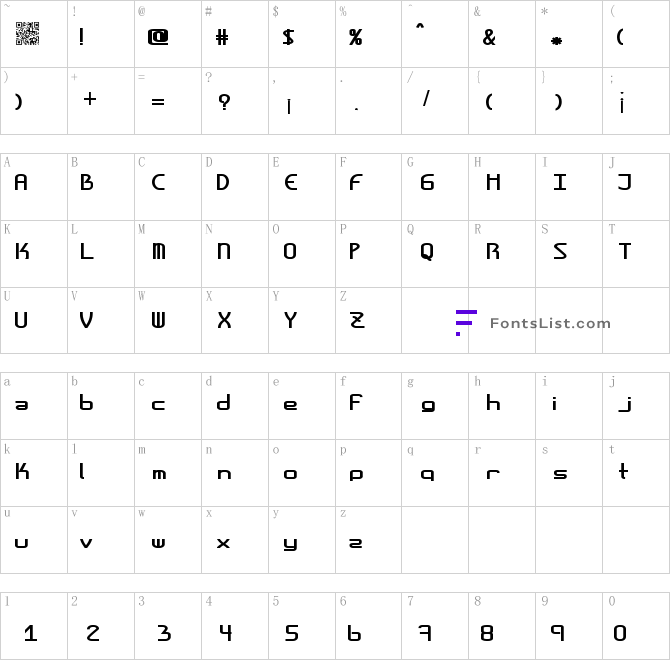
- Font Name:AmplitudesBoldShort
AmplitudesBoldShort.ttf is a very beautiful artistic font, AmplitudesBoldShort.ttf is widely used in the design and printing of various books and pictures,AmplitudesBoldShort.ttf has a strong visual impact,AmplitudesBoldShort.ttf is a commonly used font in newspapers, magazines and books, and is used in posters, e-commerce Poster design, store design, logo design, font design and other fields.AmplitudesBoldShort.